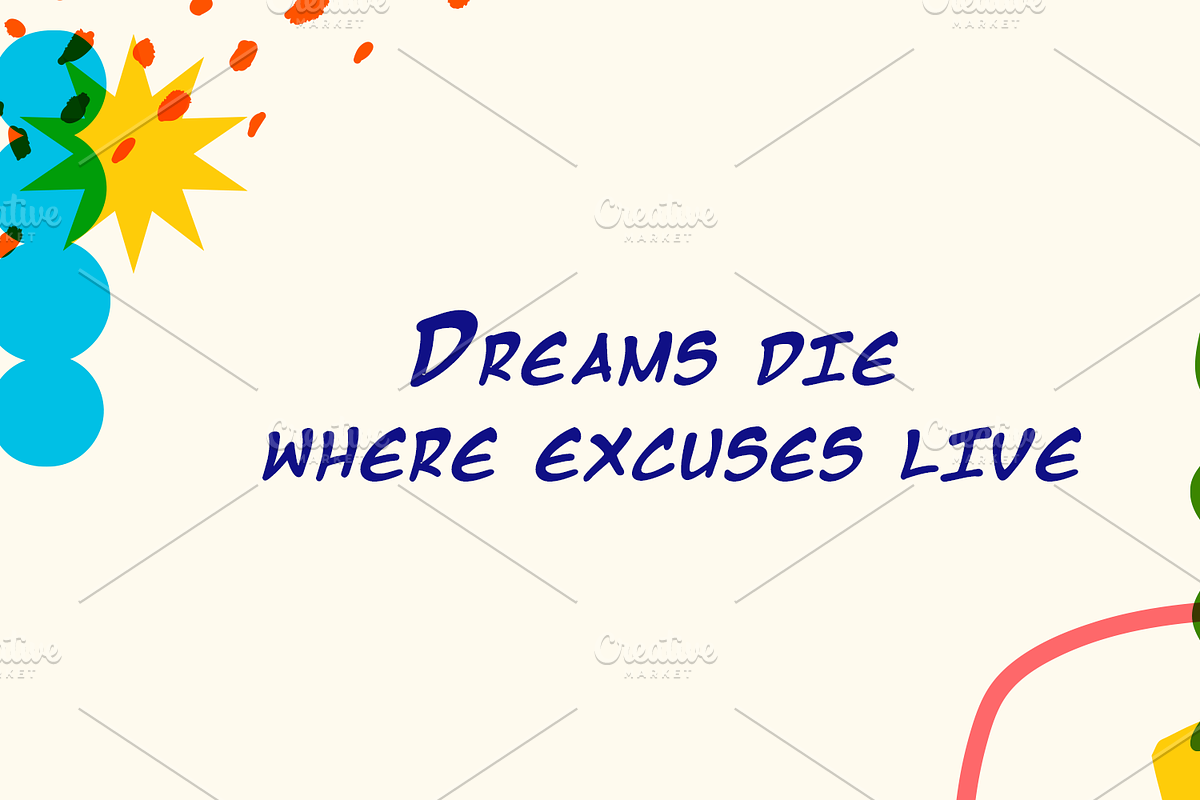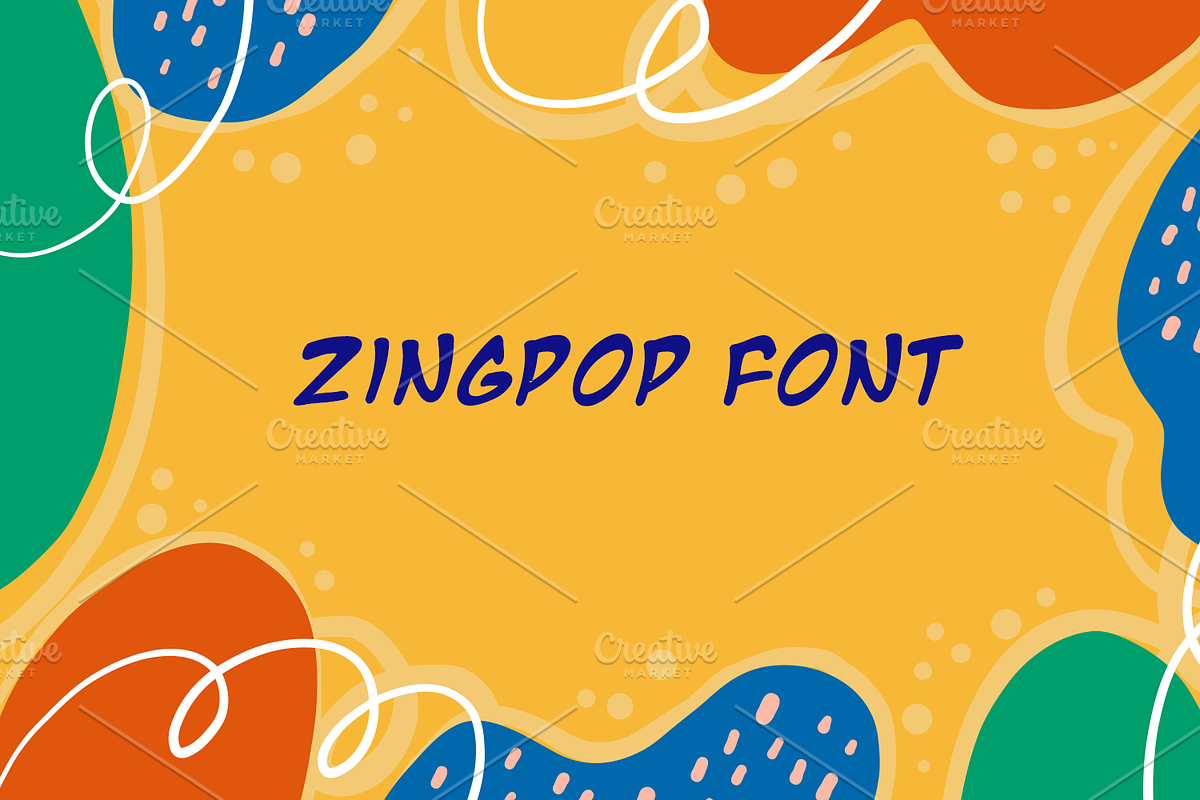
Meet ZingPop – the font that shouts fun before you even read the words!
Bursting with comic flair and bold personality, it’s your new go-to for headlines that need to pop.
Perfect for manga titles, kids’ games, or branding that refuses to be boring.
With ZingPop, every word jumps off the page—literally.